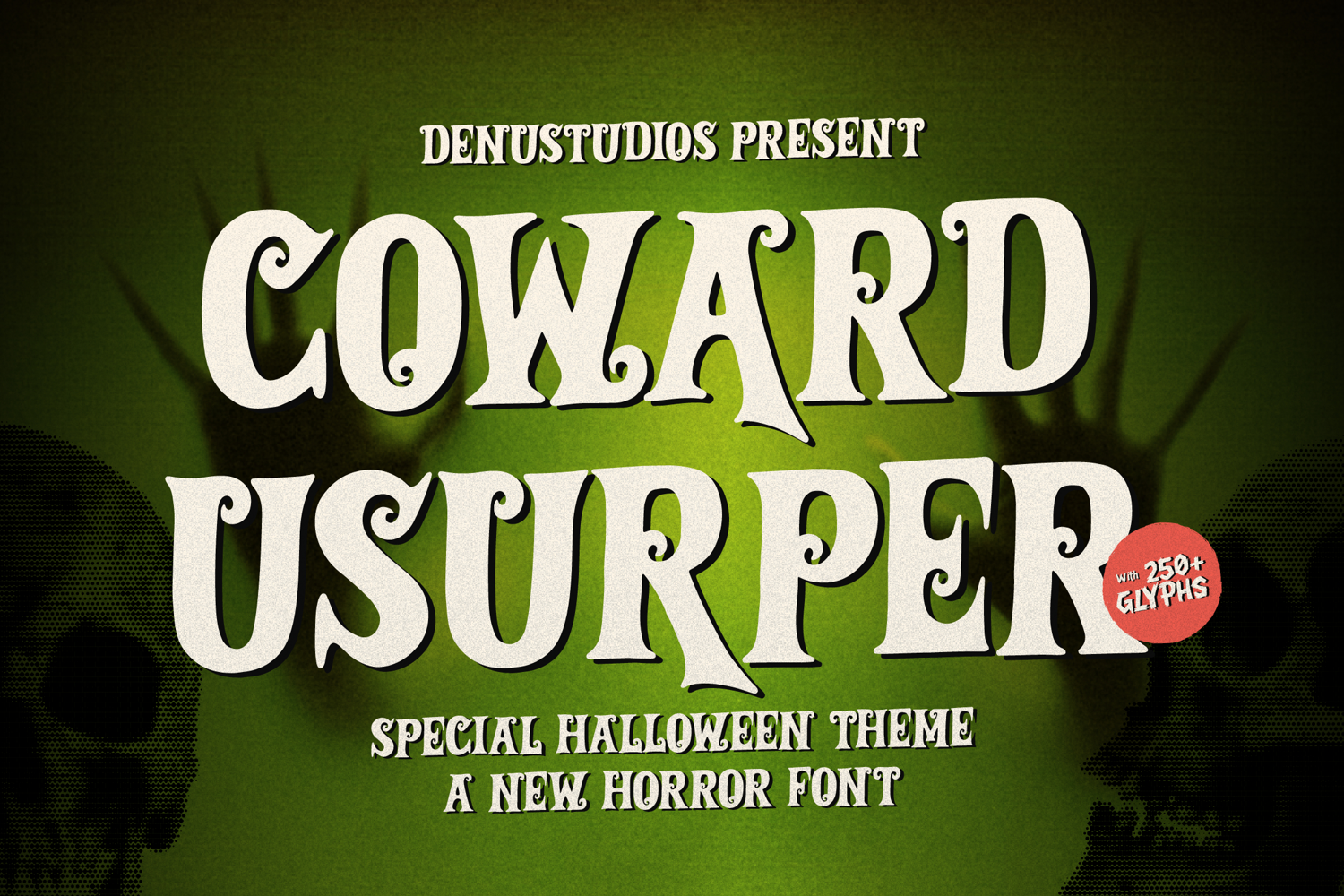
Coward Usurper | Horror Halloween Font, from Denustudios, suitable for any projects such as: logos, branding projects, homeware designs, product packaging, mugs, quotes, posters, shopping bags, t-shirts, book covers, name card, invitation cards, greeting cards, label, photography, watermark, special events, and all your other lovely projects that need a Horror taste.